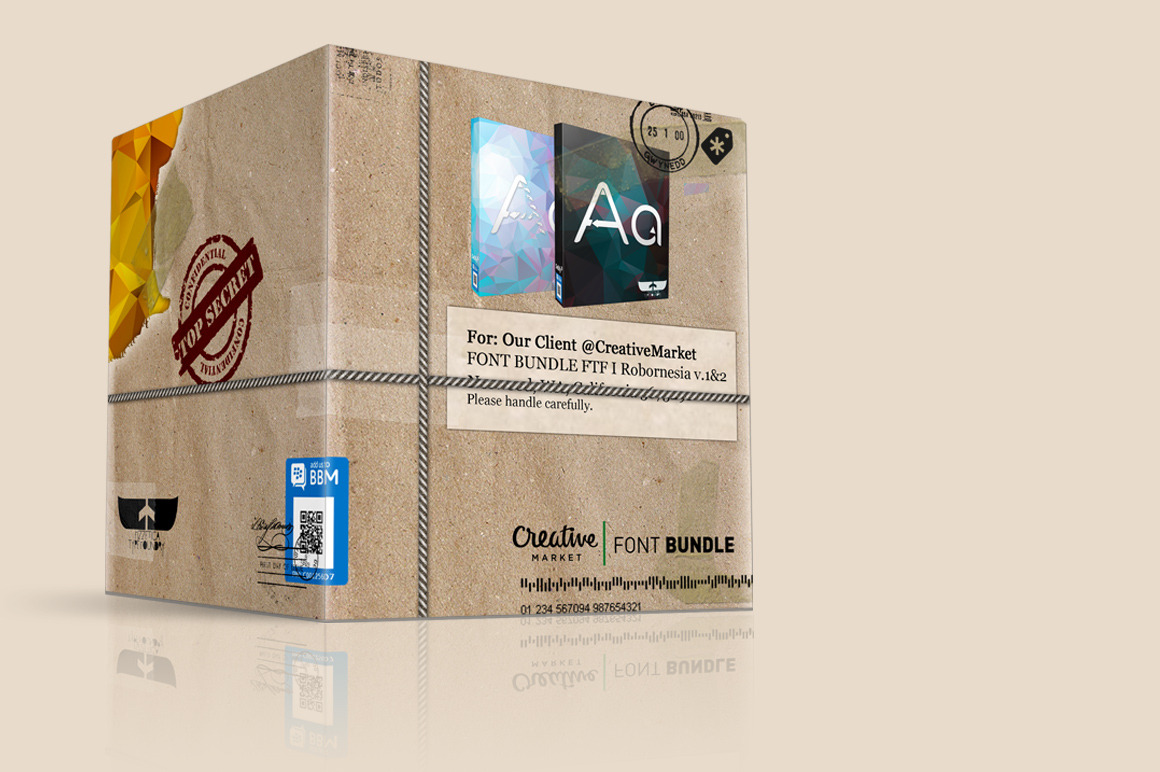
Font Bundle FTF I Robornesia
Inspired by 'ROBOT' & 'Hi-Tech', the font is very suitable for everything about branding, logo or about techno, automatic, modern, Hi-Tech, robot, future.. etc